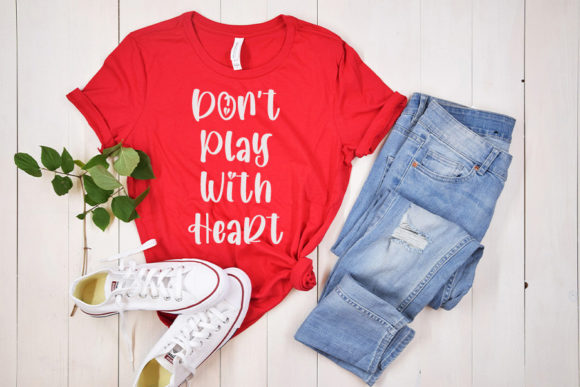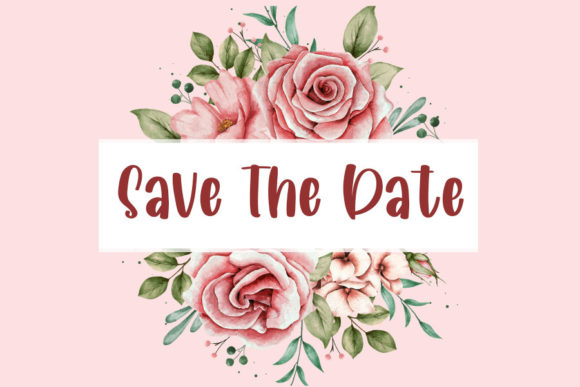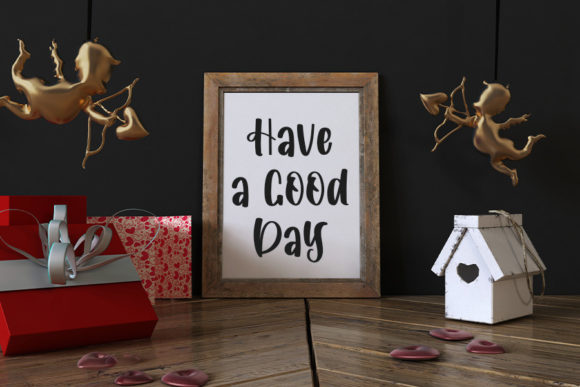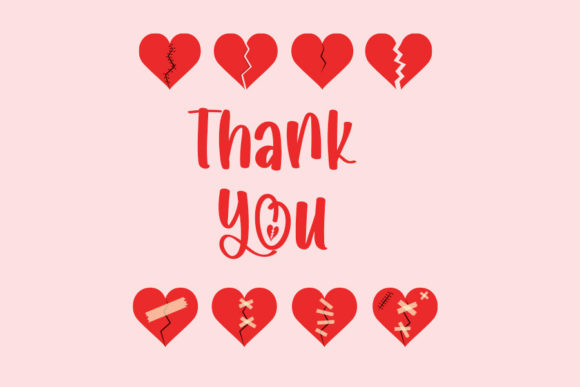
Discover the Charming Brokenlove Font: Elevate Your Designs with a Lovely Script Font
Are you on the hunt for a font that adds a touch of whimsy and playfulness to your designs? Look no further than the Brokenlove Font, a beautiful script font that is sure to capture your heart. With its charming, dancing characters, Brokenlove is the perfect addition to any creative project. In this article, we’ll dive into the world of Brokenlove Font, exploring its features, uses, and benefits for designers and crafters alike.
What is Brokenlove Font?
Brokenlove Font is a lovely script font that boasts charming, playful characters that seem to dance along the baseline. This delightful font is designed to add a personal touch to your designs, making them stand out from the crowd. Whether you’re working on a branding project, crafting a social media graphic, or creating a beautiful wedding invitation, Brokenlove Font is the perfect choice.
Key Features of Brokenlove Font
- Playful Characters: Brokenlove Font features playful characters that seem to dance along the baseline, adding a touch of whimsy to your designs.
- Charming Script: The font boasts a charming script style that is perfect for adding a personal touch to your designs.
- High-Quality Design: Brokenlove Font is designed with high-quality craftsmanship in mind, ensuring that your designs look professional and polished.
- Easy to Read: Despite its playful nature, Brokenlove Font is easy to read, making it perfect for use in a variety of design applications.
Uses for Brokenlove Font
Brokenlove Font is a versatile font that can be used in a variety of design applications, including:
- Branding: Use Brokenlove Font to add a personal touch to your brand’s logo, business cards, and marketing materials.
- Social Media Graphics: Add a playful touch to your social media graphics, including Facebook posts, Instagram stories, and Twitter headers.
- Wedding Invitations: Use Brokenlove Font to create beautiful, whimsical wedding invitations that set the tone for a special day.
- Crafting: Brokenlove Font is perfect for crafters who want to add a personal touch to their projects, including handmade cards, scrapbooking, and DIY crafts.
Benefits of Using Brokenlove Font
So why choose Brokenlove Font for your design projects? Here are just a few benefits of using this lovely script font:
- Adds a Personal Touch: Brokenlove Font adds a personal touch to your designs, making them more relatable and engaging.
- Stand Out from the Crowd: With its playful, dancing characters, Brokenlove Font is sure to make your designs stand out from the crowd.
- High-Quality Design: Brokenlove Font is designed with high-quality craftsmanship in mind, ensuring that your designs look professional and polished.
Tips for Using Brokenlove Font
Here are a few tips for getting the most out of Brokenlove Font:
- Use it Sparingly: While Brokenlove Font is playful and fun, it can be overwhelming if used too much. Use it sparingly to add a touch of whimsy to your designs.
- Pair it with Other Fonts: Brokenlove Font pairs well with other fonts, including sans-serif and serif fonts. Experiment with different pairings to find the perfect combination.
- Experiment with Colors: Brokenlove Font looks great in a variety of colors, from bright and bold to soft and pastel. Experiment with different colors to find the perfect fit for your design.